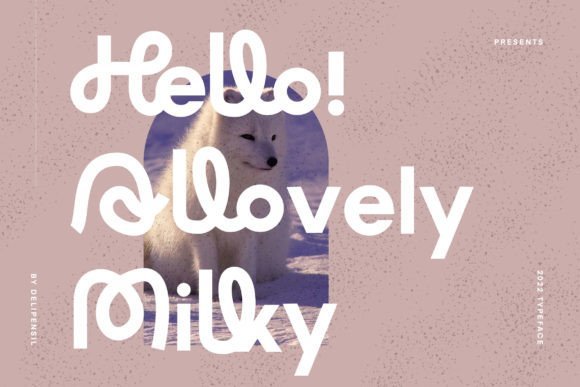
The Perfect Font for Your Masterpiece
Have you ever stared at a blank page, trying to come up with the perfect design for your logo or book cover? The blank space can be daunting, but it’s also a blank canvas waiting for your creativity to shine. For many designers, finding the right font is the key to unlocking their vision.
That’s where the Allovely Font comes in – a beautiful sans serif font that combines a clean and classic appearance with a sophisticated touch. Whether you’re designing a logo, headline, book cover, or magazine, the Allovely Font is the perfect choice to make your project truly unique.
As a designer, you understand the importance of selecting the right font to convey your message and leave a lasting impression. The Allovely Font is a valuable addition to any designer’s toolkit, offering a versatile and stylish option for a wide range of projects.
Allovely Font Key Features
- Unique Characteristics: Allovely Font features a unique blend of modern and vintage elements, with intricate details and subtle flair, making it perfect for creative projects.
- Font Style: Allovely Font comes in 3 font styles: Regular, Italic, and Bold, offering versatility and flexibility for different design applications.
Allovely Font Review
I recently had the chance to work with the Allovely font, and I must say it’s a mixed bag. Here are my thoughts:
- The Allovely font has a unique and playful feel to it, which can be great for adding some personality to your designs.
- The font is highly legible, even at smaller font sizes, which is a must-have for any font.
- The font family includes a wide range of weights and styles, making it easy to find the perfect match for your project.
- The font can feel a bit overused, as it’s been used in a lot of similar designs recently.
- The font’s unique feel can also make it feel a bit gimmicky or attention-seeking, which may not be suitable for all projects.
- The font’s bold weights can feel a bit chunky or heavy-handed, which may not be ideal for all designs.
Overall, the Allovely font is a solid choice for designers looking to add some personality to their projects. While it may not be the most versatile font, it’s a great option for projects that need a fun and playful touch. With a bit of careful consideration, the Allovely font can be a great addition to your design toolkit.
Tips for Getting the Most Out of Allovely Font
Use Allovely Font for titles, headings, and body text to add a touch of elegance and sophistication to your designs.
Combine Allovely Font with other fonts to create a unique and visually appealing typography.
Experiment with different font sizes, colors, and styles to find the perfect combination that suits your design needs.
Allovely Font is ideal for:
Branding and marketing materials
Editorial and publishing designs
Any design project where a touch of elegance and sophistication is desired
Alternatives to Allovely Font for Designers
Lato Font is a sans-serif typeface designed by Łukasz Dziedzic. It’s a modern and clean font suitable for digital products, websites, and apps. Lato Font is a great alternative to Allovely Font when you need a more minimalist and neutral look.
Comparison: While Allovely Font has a more playful and cursive feel, Lato Font is more straightforward and modern. Lato Font is ideal for projects where you want a clean and easy-to-read font.